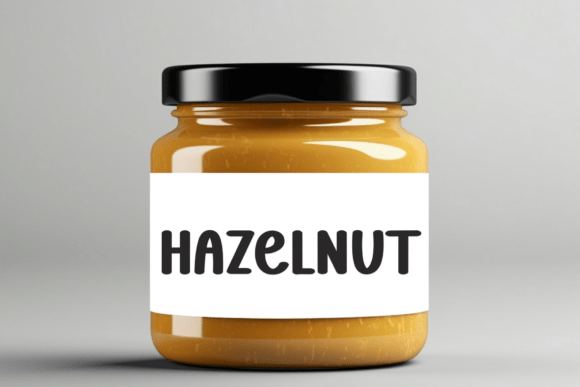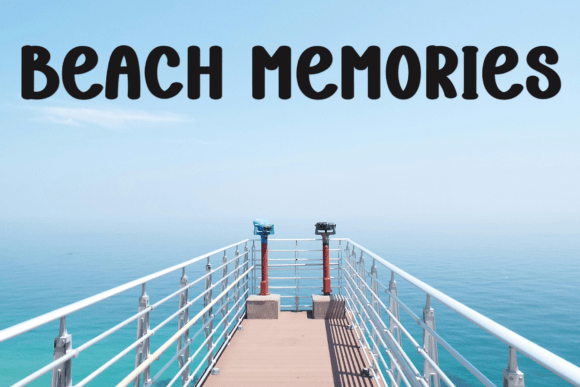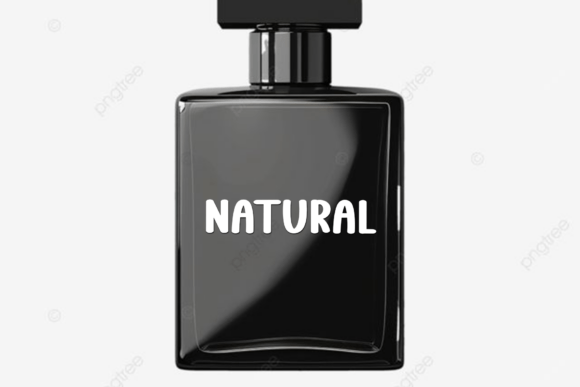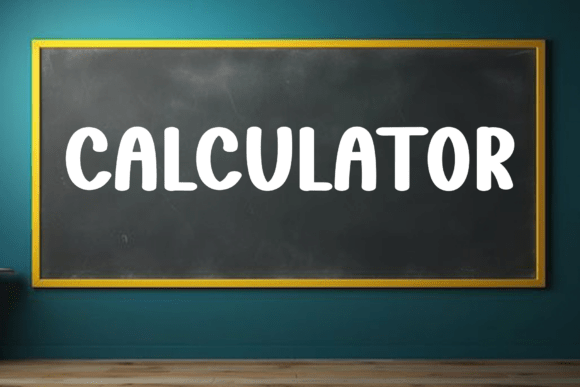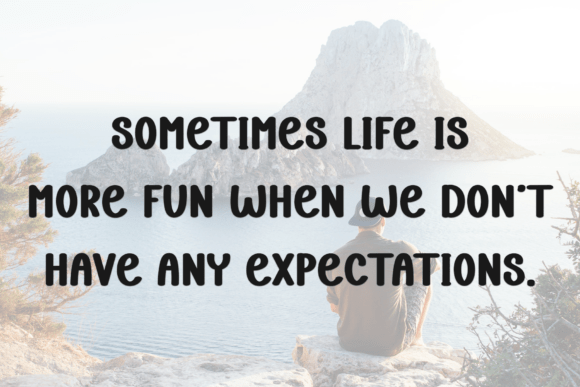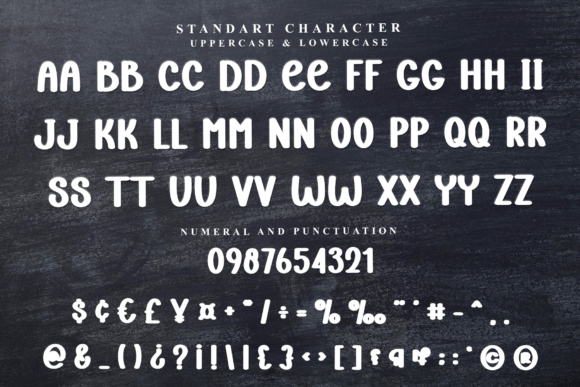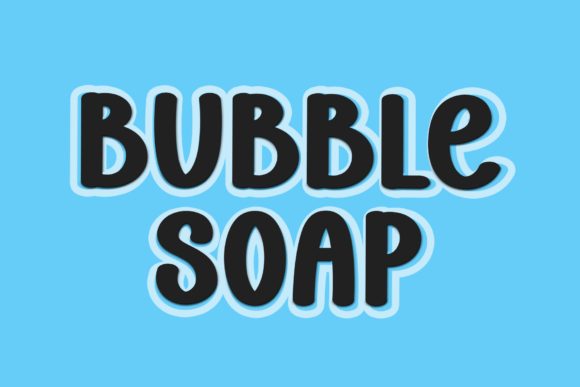
Bubble Soap Font: Add a Playful Touch to Your Designs
Are you looking for a font that can add a dash of fun and playfulness to your designs? Look no further than the Bubble Soap font! This bold display font is perfect for kids’ projects, toy packaging, cartoon titles, and cheerful branding. Its bubbly personality and energetic vibe make it a great choice for designers and crafters who want to create engaging and charming designs.
The Characteristics of Bubble Soap Font
Bubble Soap is a fun, bold display font that features rounded, chunky letterforms and thick strokes. Its soft outlines give it a friendly and approachable vibe that’s easy to read and full of charm. The font’s playful energy is infectious, making it perfect for designs that require a lighthearted and cheerful touch.
Perfect for Kids’ Projects and Toy Packaging
Kids’ projects and toy packaging require a font that’s fun, playful, and engaging. Bubble Soap font is an excellent choice for such projects. Its bold and chunky letterforms make it easy to read, even for young children. The font’s playful energy and cheerful vibe also make it perfect for toy packaging, as it can help to create a sense of excitement and wonder.
Great for Cartoon Titles and Cheerful Branding
Bubble Soap font is also great for cartoon titles and cheerful branding. Its bold and playful energy makes it perfect for creating eye-catching titles and headings that can help to grab the attention of your audience. The font’s friendly and approachable vibe also make it an excellent choice for branding, as it can help to create a sense of warmth and approachability.
Why Designers and Crafters Love Bubble Soap Font
Designers and crafters love Bubble Soap font for its versatility and playfulness. The font can be used for a wide range of projects, from kids’ crafts to commercial branding. Its bold and chunky letterforms make it easy to read, while its soft outlines give it a friendly and approachable vibe. The font’s playful energy is also infectious, making it perfect for designers and crafters who want to create engaging and charming designs.
Tips for Using Bubble Soap Font
Here are some tips for using Bubble Soap font:
- Use it for kids’ projects and toy packaging to add a playful touch.
- Pair it with other bold and playful fonts to create a fun and energetic design.
- Use it for cartoon titles and cheerful branding to create a sense of excitement and wonder.
Bubble Soap font is a fun, bold display font that’s perfect for designers and crafters who want to add a playful touch to their designs. Its rounded, chunky letterforms and thick strokes make it easy to read, while its soft outlines give it a friendly and approachable vibe. Whether you’re working on kids’ projects, toy packaging, cartoon titles, or cheerful branding, Bubble Soap font is an excellent choice.
Get Creative with Bubble Soap Font
So why not get creative with Bubble Soap font? With its playful energy and cheerful vibe, it’s the perfect font for designers and crafters who want to create engaging and charming designs. Try it out today and see how it can add a dash of fun and playfulness to your designs!